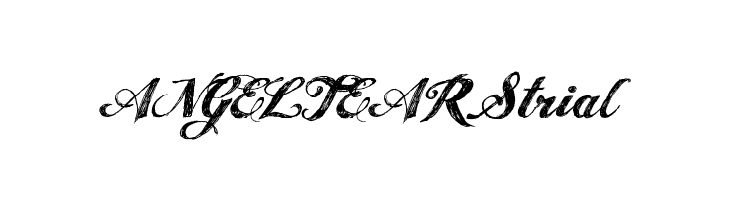
An ornate and decorative script font with elaborate swirls and flourishes.
An elegant and ornate script font with flowing, interconnected letterforms.
An elegant, high-contrast script font with ornate swashes and flowing letterforms.